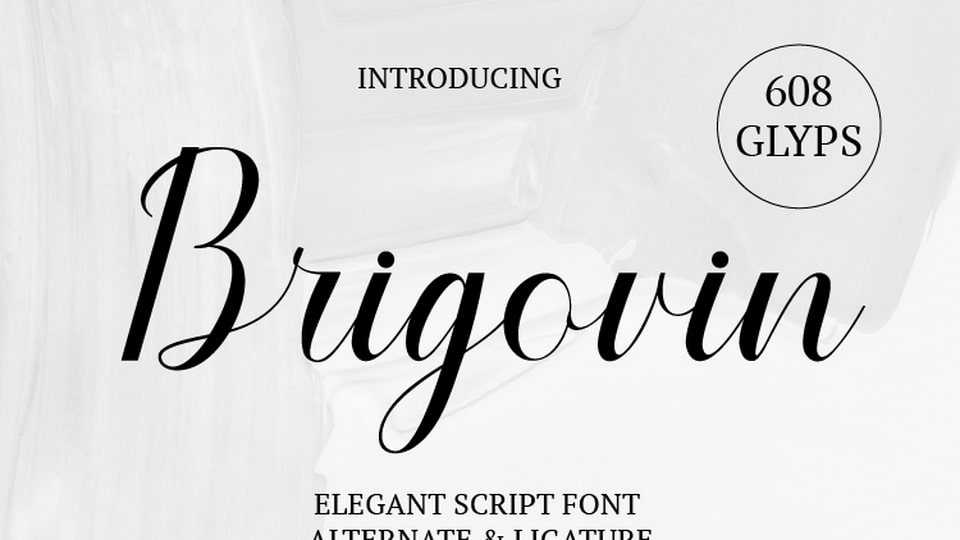
Download Brigovin font, a modern handwritten typeface with an elegant twist. Brigovin is the best choice for creating eye catching logos, branding and quotes.
Designer: Rvandtype Studio